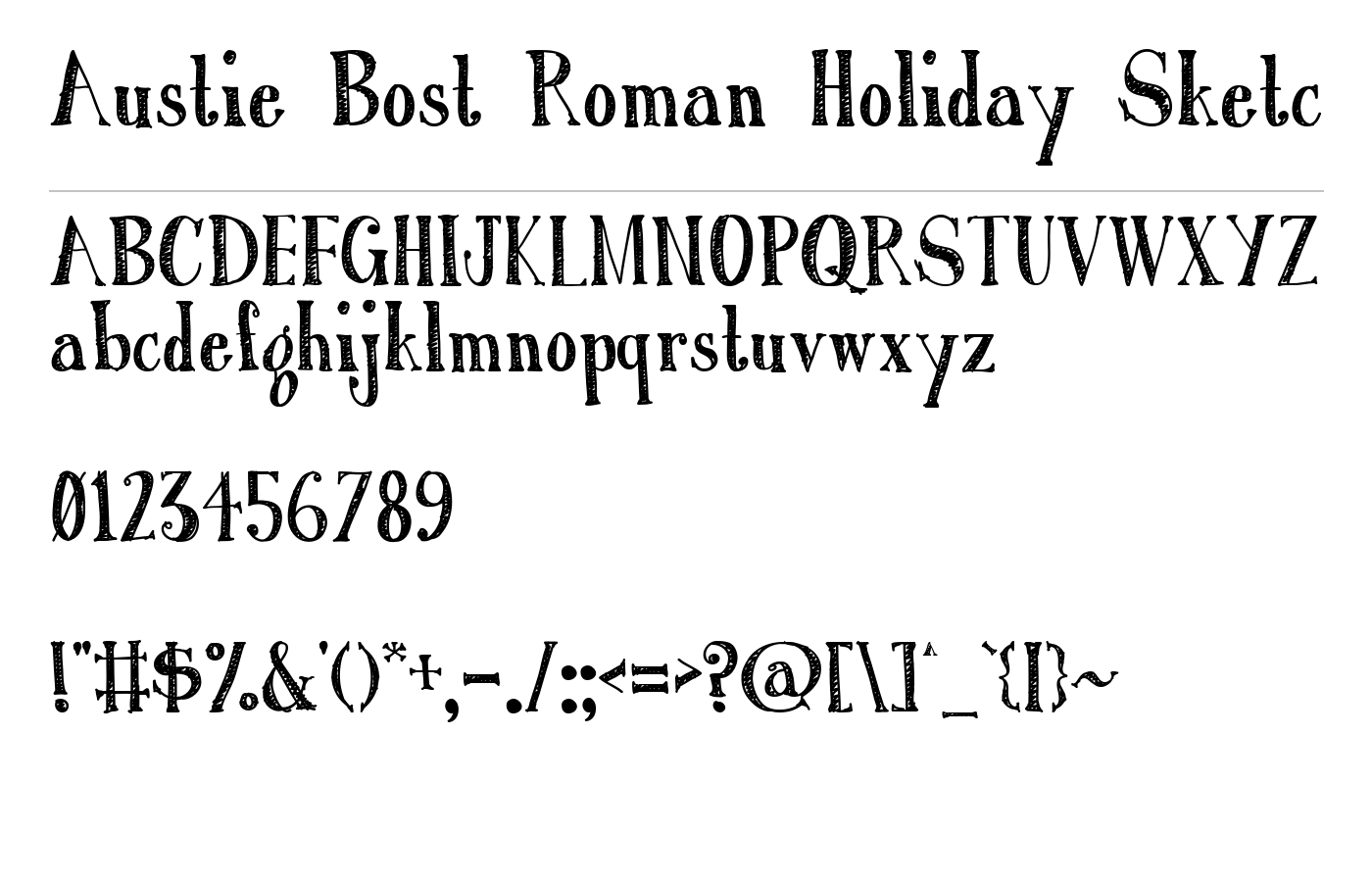
Austie Bost Roman Holiday Sketch is a playful serif font with a hand-drawn, textured style that adds a charming vintage feel. Its irregular strokes and sketch-like details create a casual yet distinctive look, making it perfect for creative projects, invitations, and headlines that want to convey warmth and personality. This font works well in designs needing a whimsical, handcrafted touch, adding a unique character that stands out.
Austie Bost Roman Holiday Sketc Font
About Austie Bost Roman Holiday Sketc Font